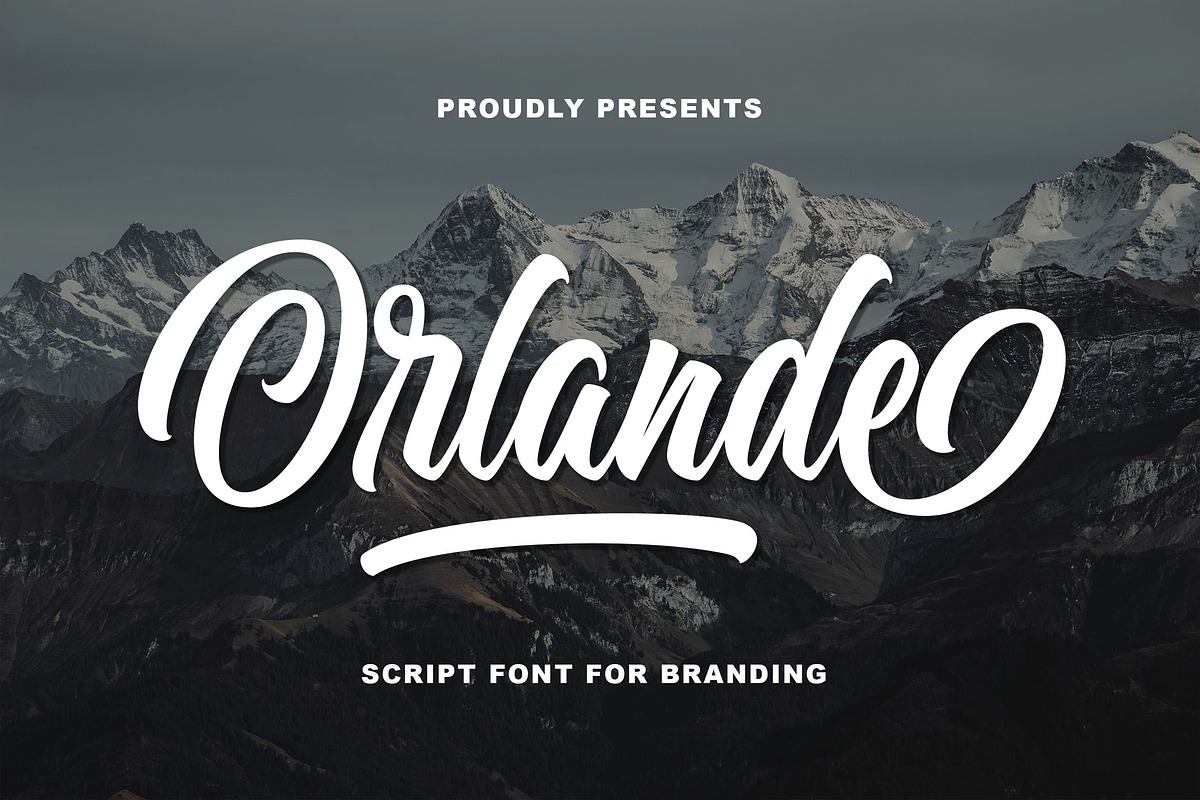
Make your brand unforgettable with Orlande Branding Font Free Download — a bold and elegant typeface created for high-impact branding and modern design. With its sleek lines, professional curves, and refined aesthetic, Orlande is perfect for luxury logos, packaging design, fashion labels, and business identity materials that demand attention.
This font combines minimalism with style, making it a versatile asset in any creative project. It includes uppercase and lowercase letters, numerals, punctuation, and multilingual support — everything you need to create polished, premium visuals that resonate with your audience.